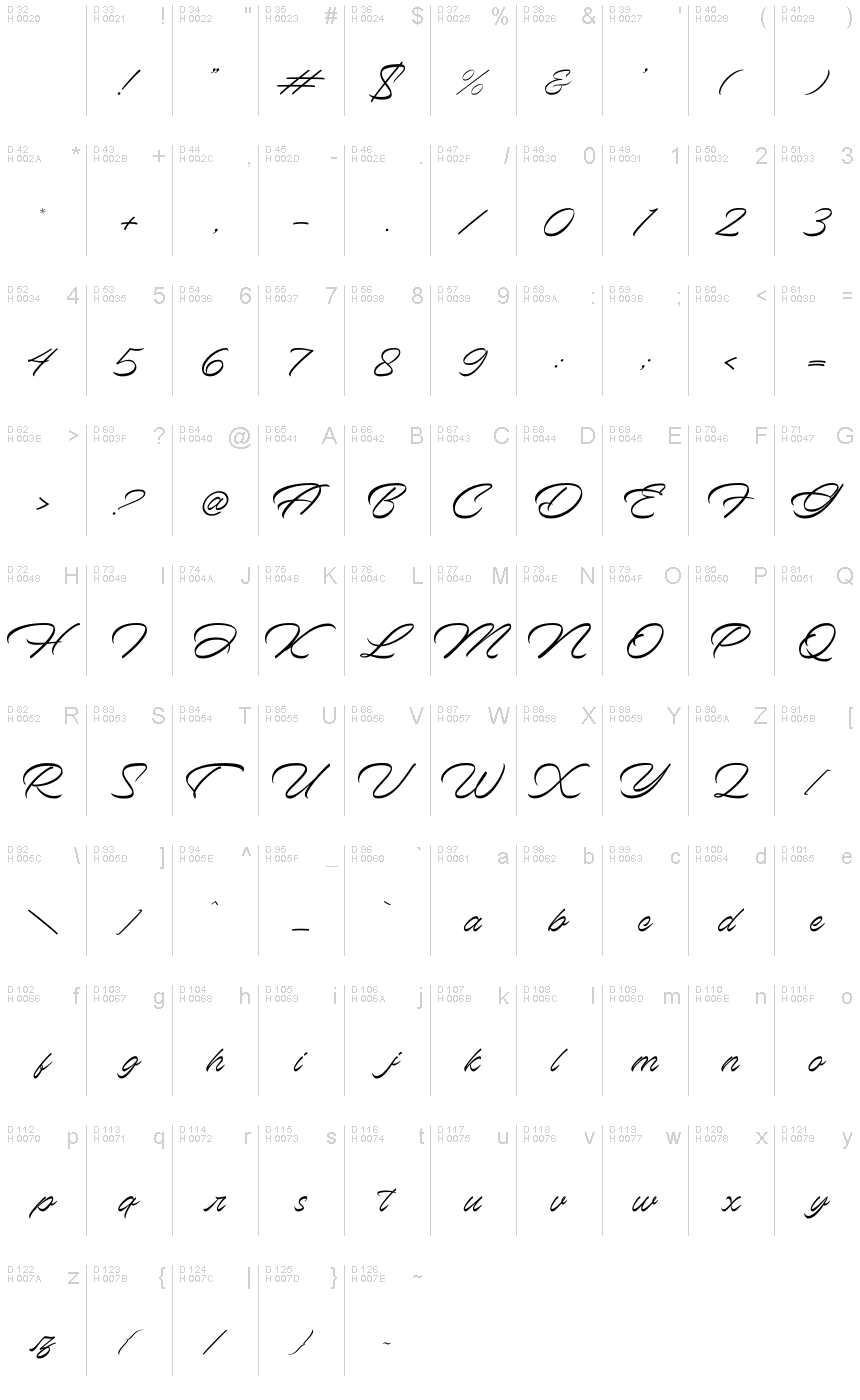
Roadly Hezarttest, a captivating handwritten font created by Storytype Studio, exudes a sense of artistry and personality. Its flowing, dynamic strokes convey a tactile, handcrafted quality, evoking a warm and inviting atmosphere. The font's distinctive character, with its subtle variations and organic flourishes, lends an air of authenticity and charm to any design.
Roadly Hezarttest's versatility makes it a prime choice for a wide range of applications, from editorial layouts and branding to packaging and product design. Its expressive and adaptable nature allows it to seamlessly integrate into various creative projects, adding a touch of elegance and personal flair to headlines, subheadings, and promotional materials.